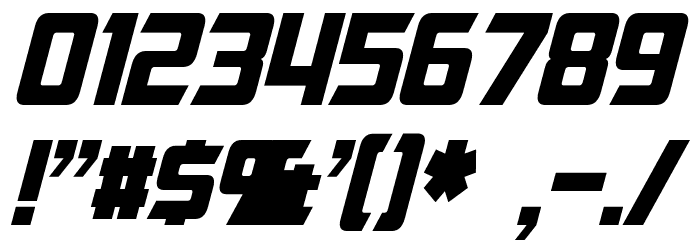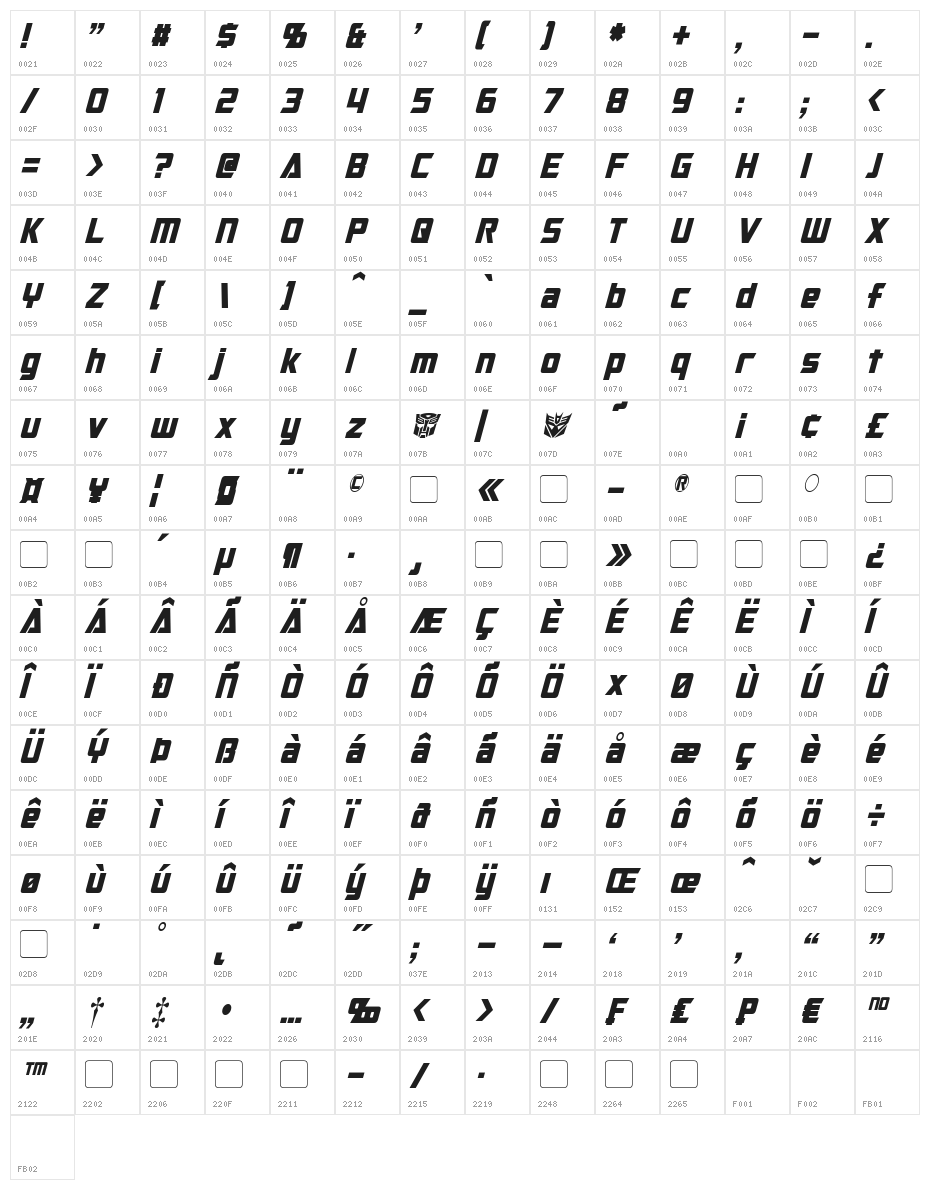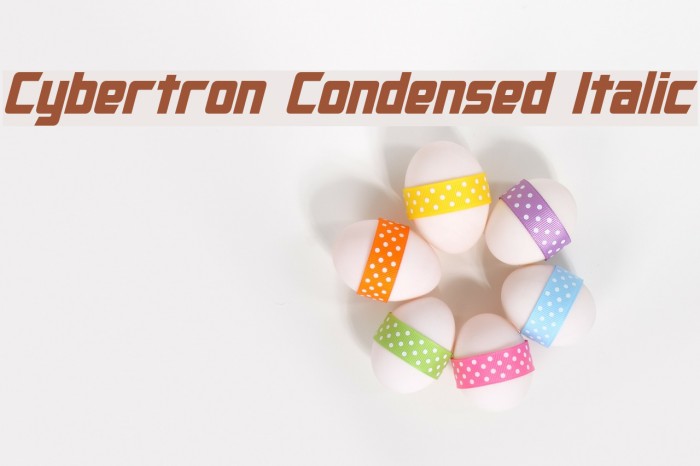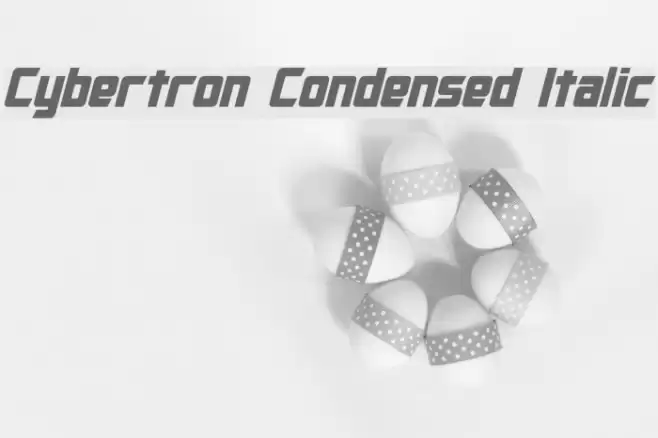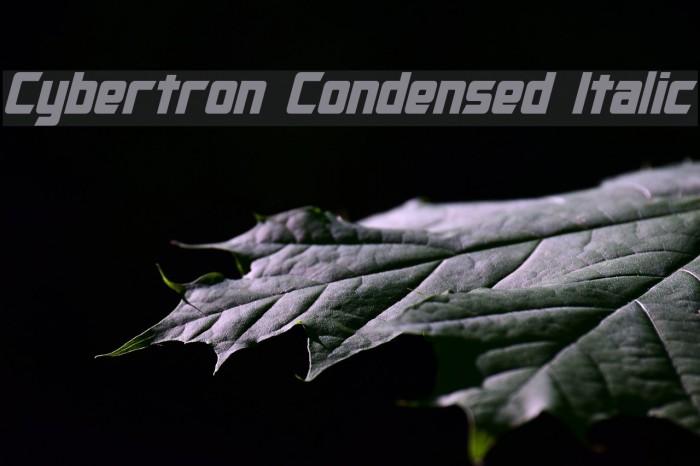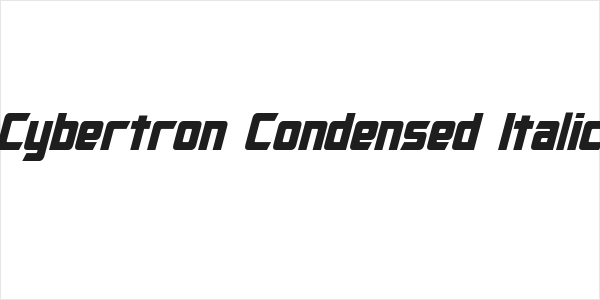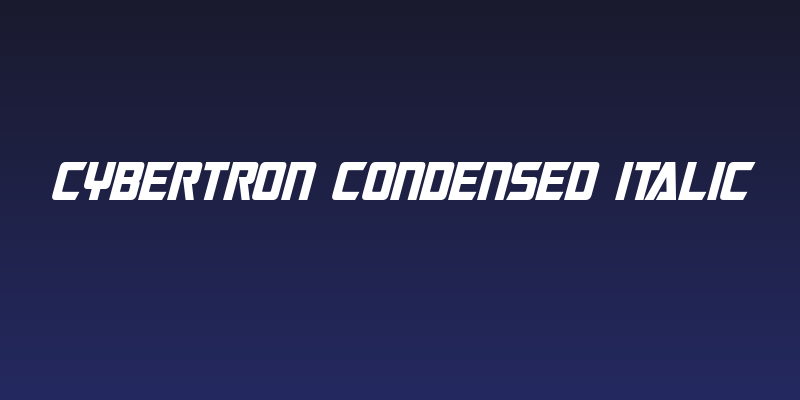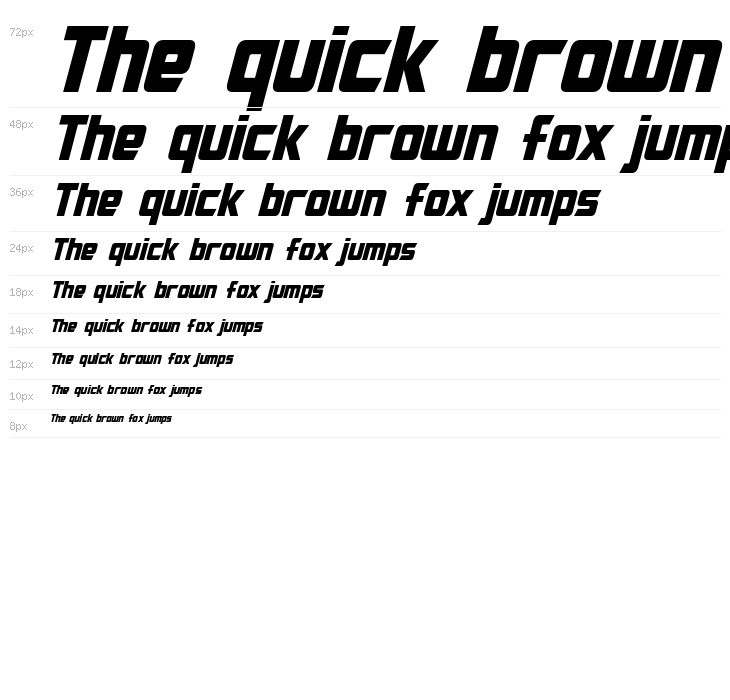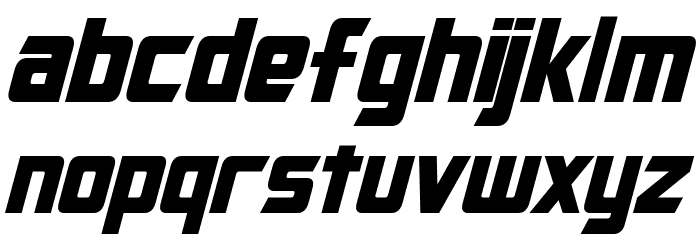
Cybertron Condensed Italic Font
Cybertron Condensed Italic Description
This font features a futuristic and dynamic design with a condensed and italicized style. The characters are bold and angular, giving a sense of speed and modernity. The uppercase and lowercase letters maintain a consistent slant, enhancing the italic effect. The numbers and special characters follow the same design principles, ensuring uniformity across all glyphs. The overall appearance is sleek and tech-inspired, making it suitable for projects that require a contemporary and energetic look.